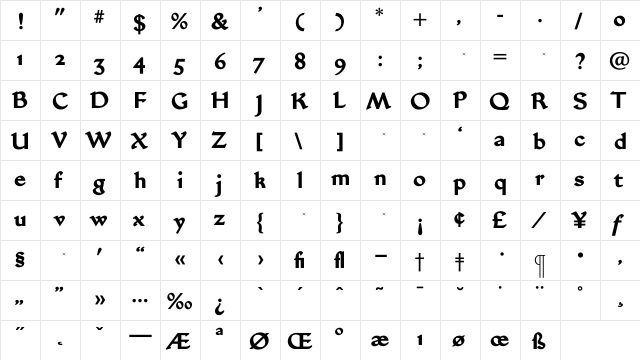
JubileeBold Regular
Design Context for JubileeBold Typeface
JubileeBold is a composed and adaptable typeface that performs quietly and consistently across a wide range of design contexts. Its bold stroke weight gives it real presence on the page.